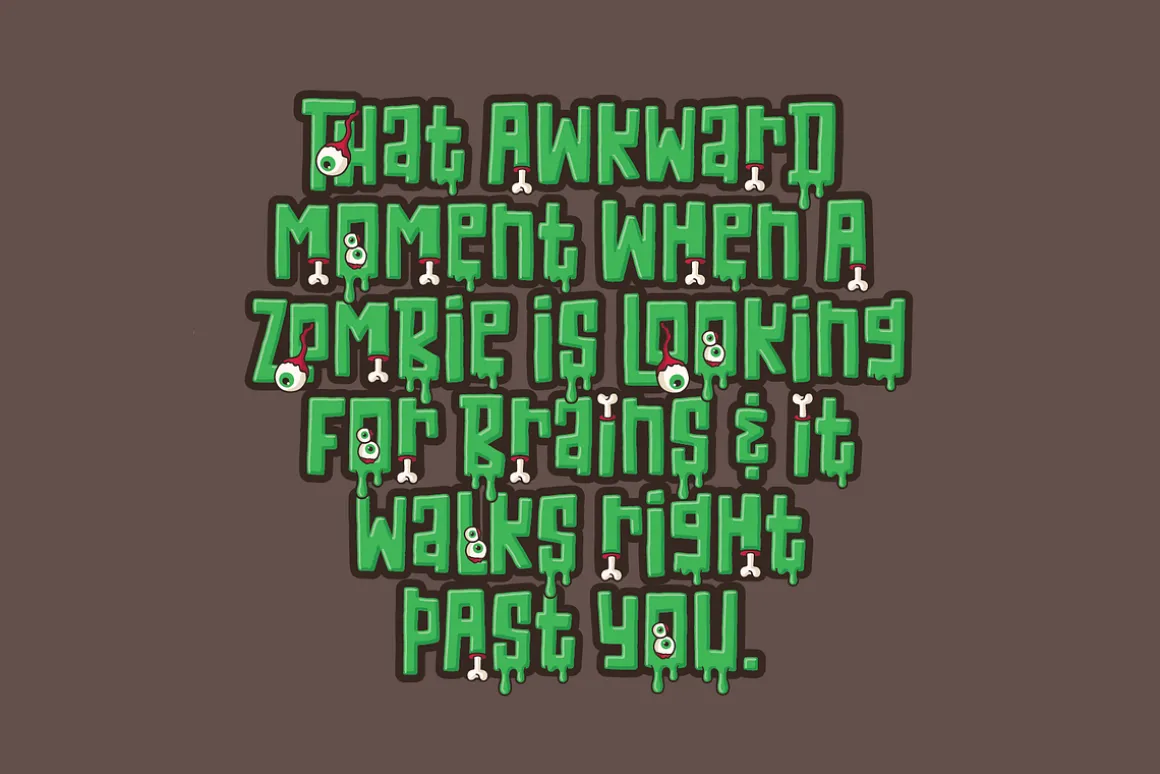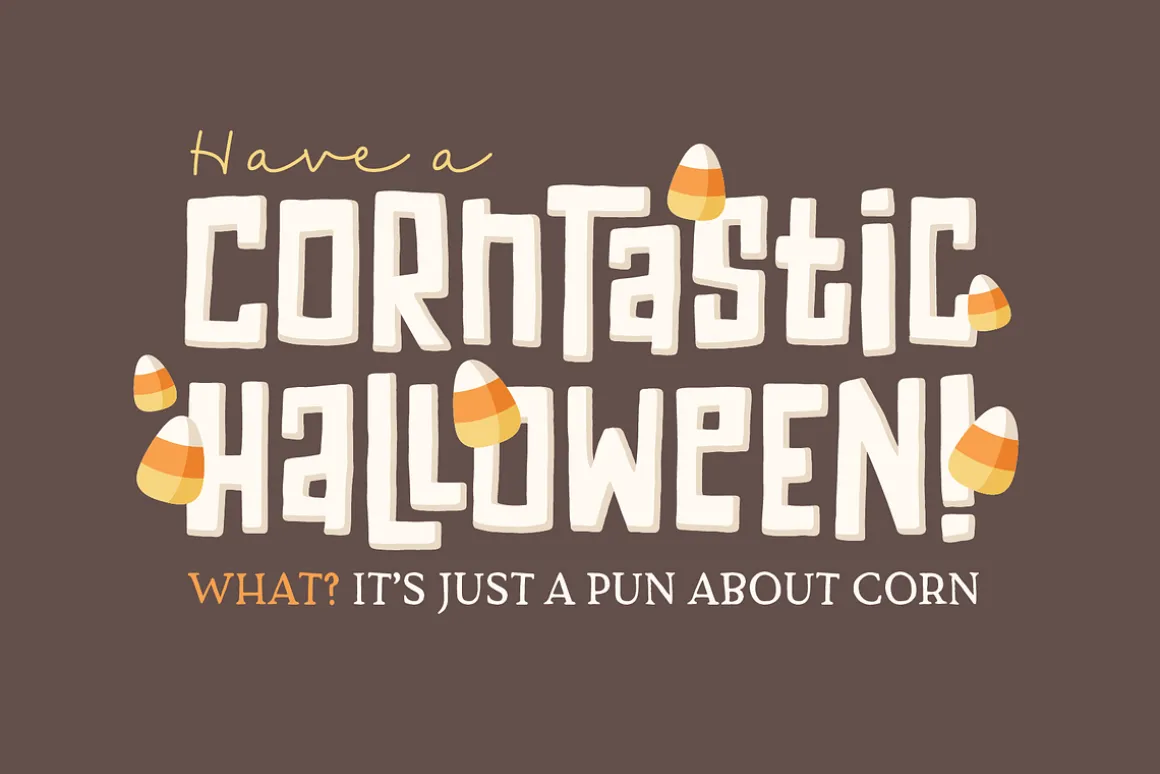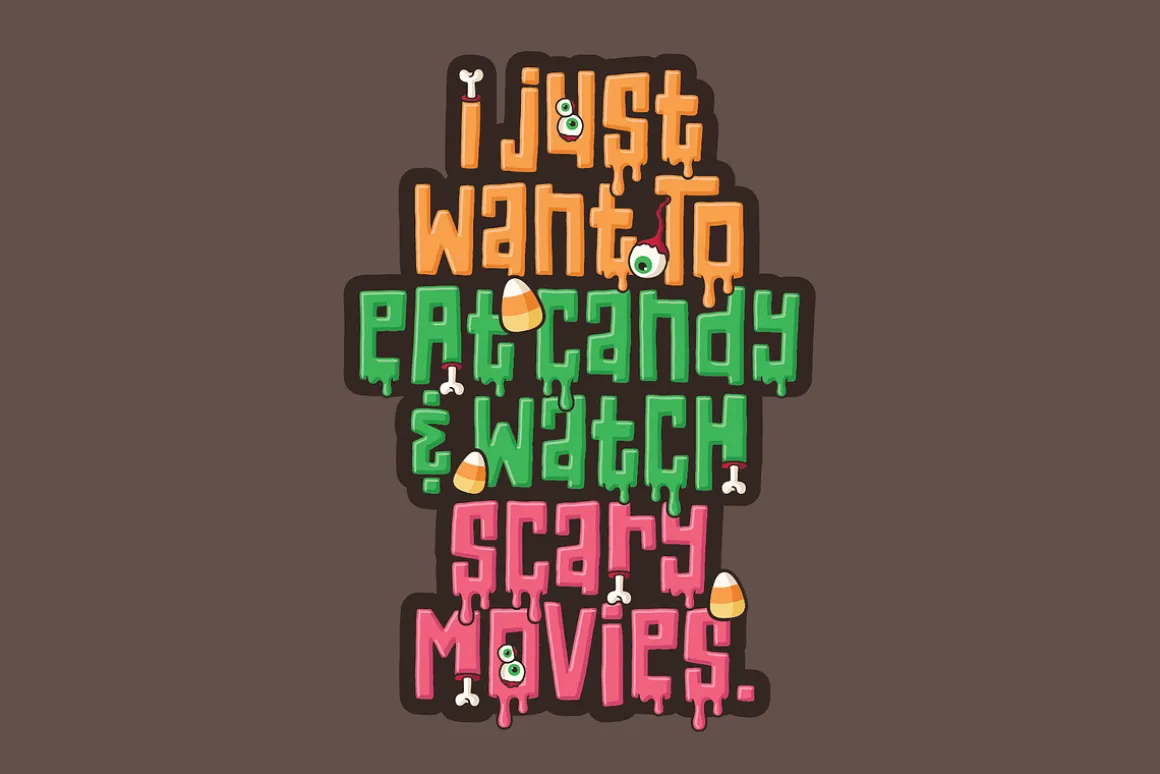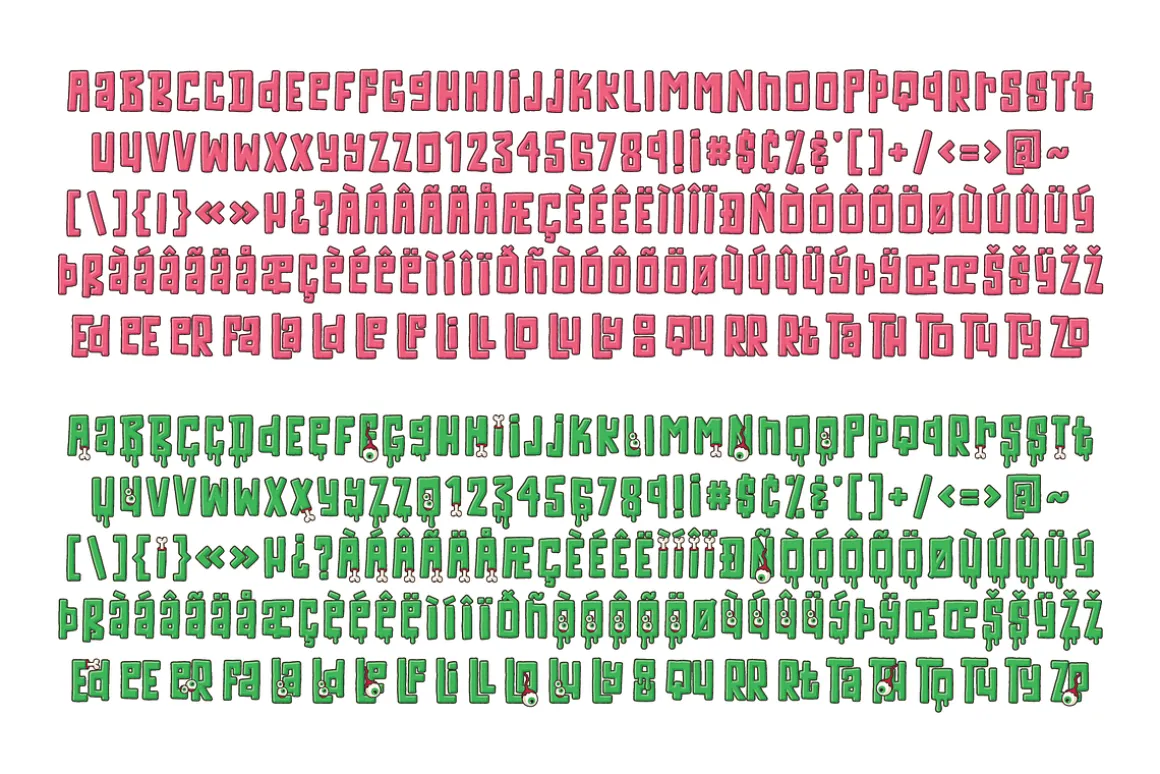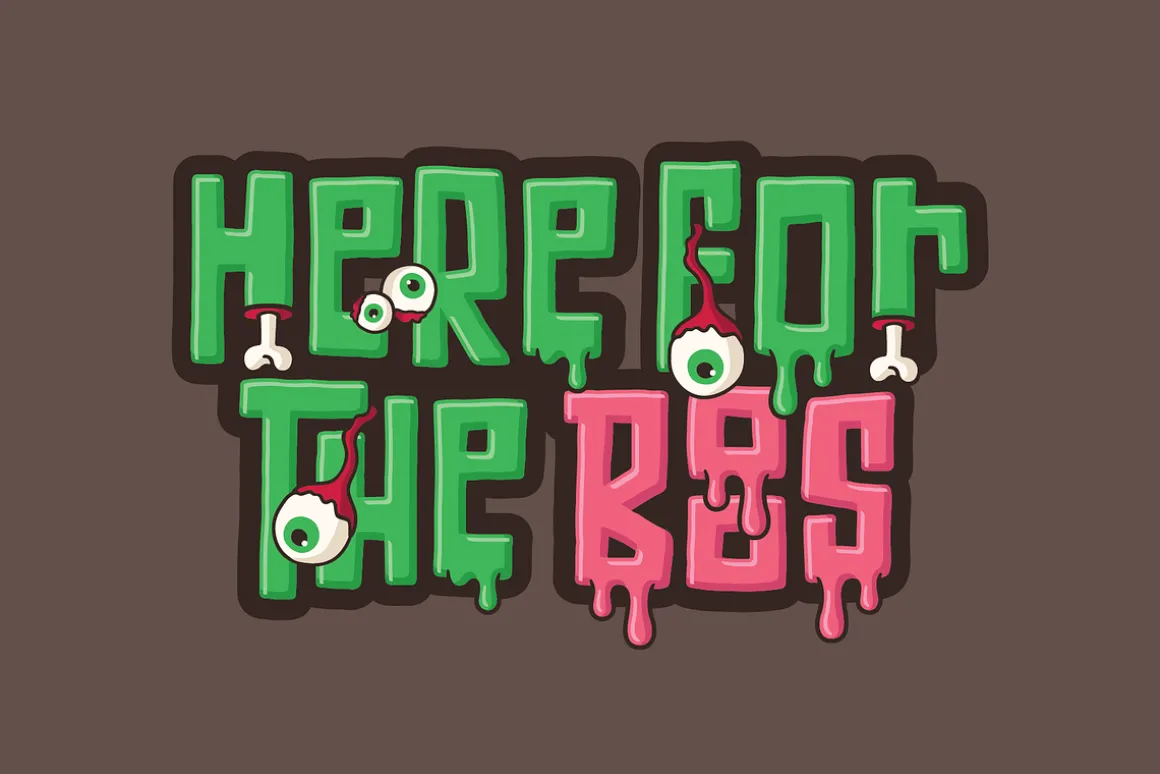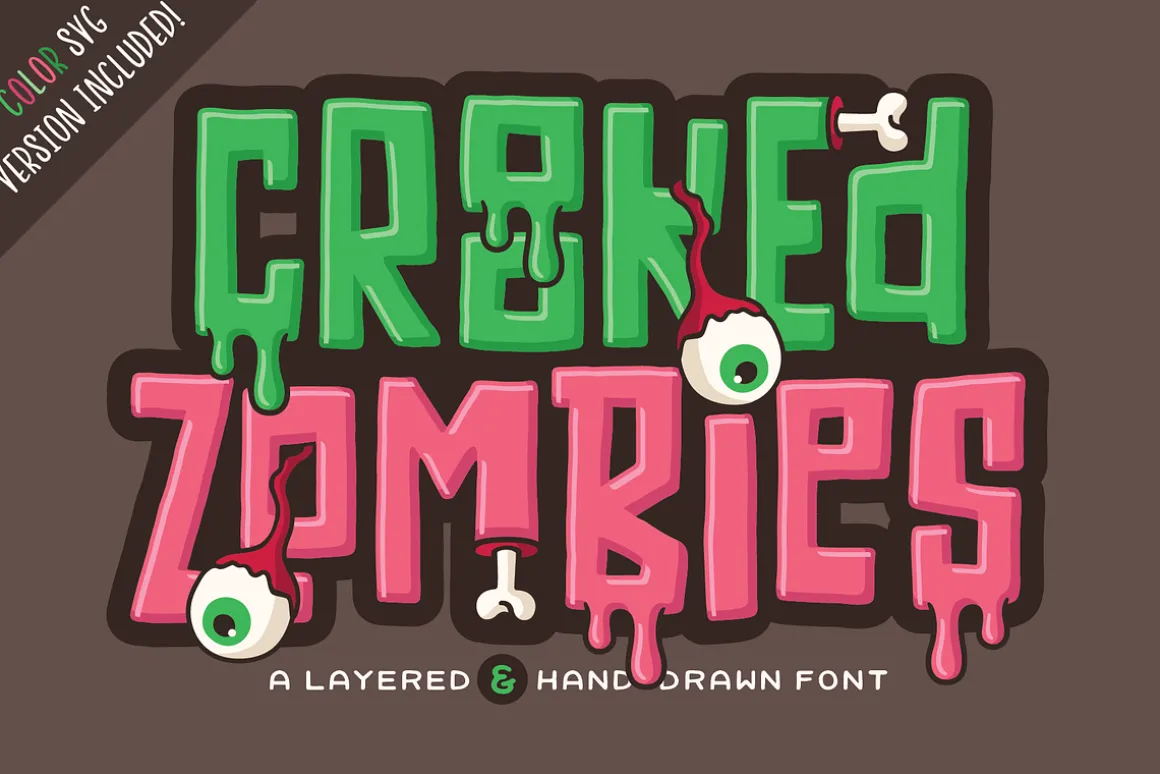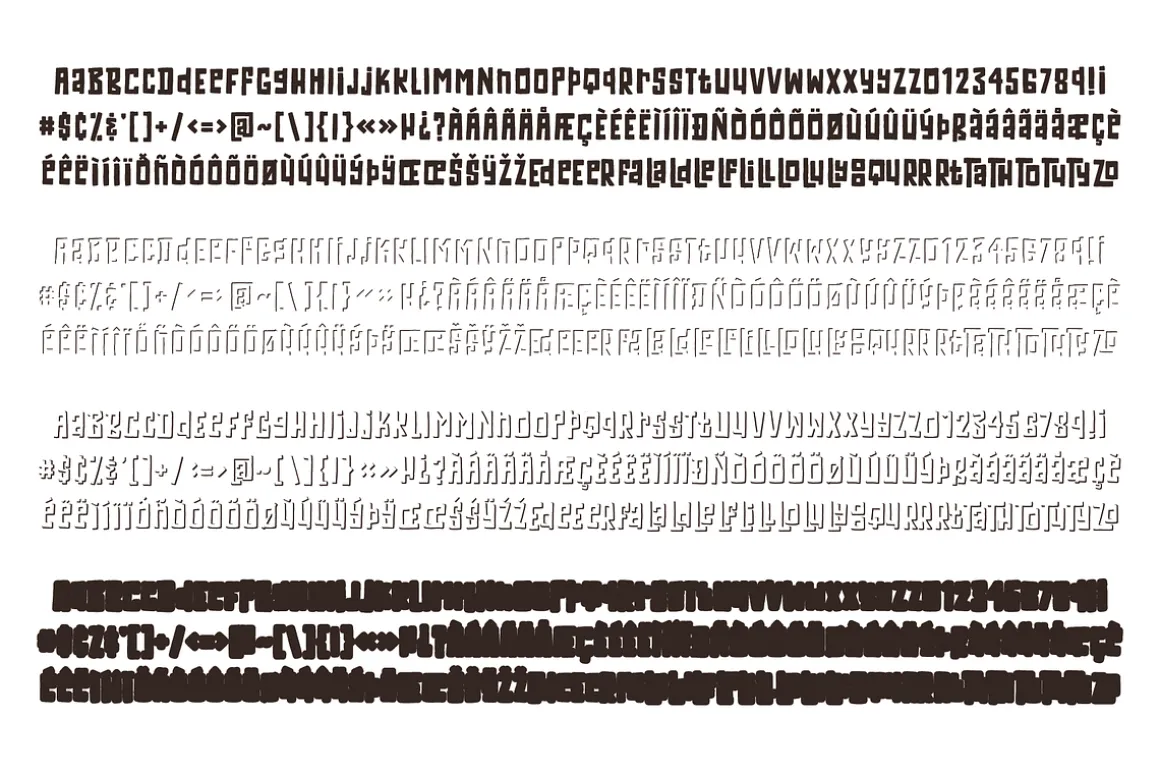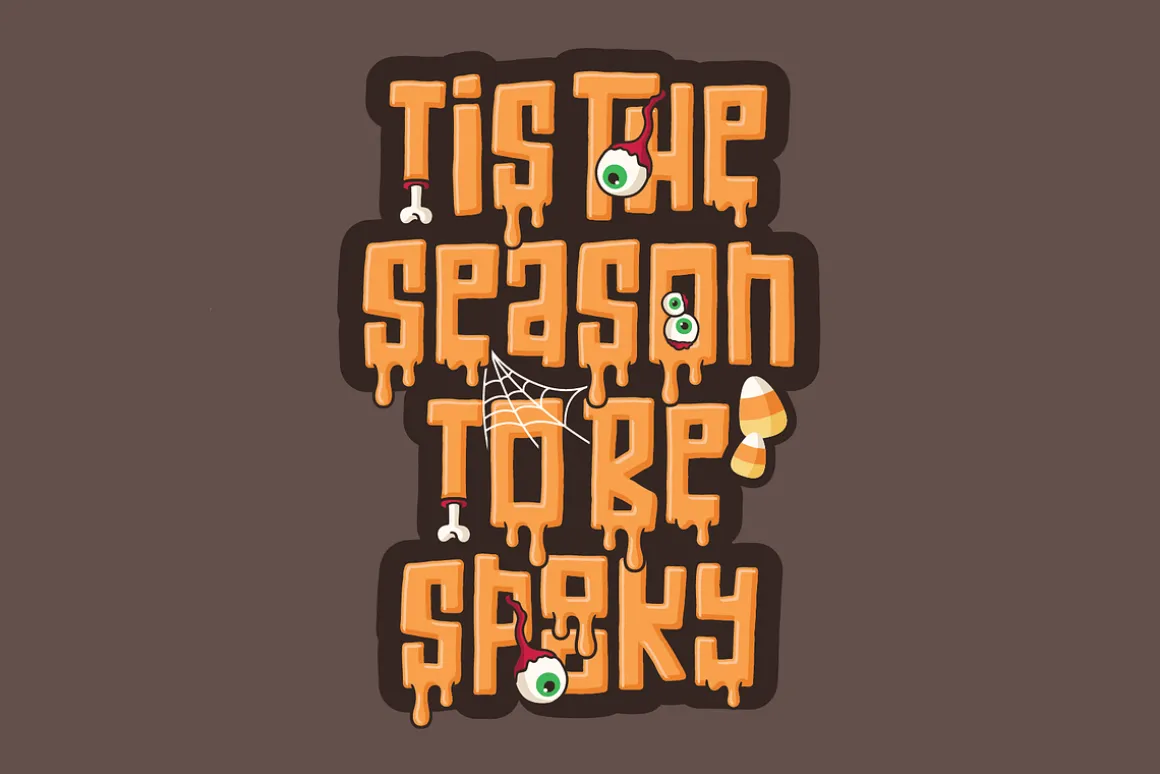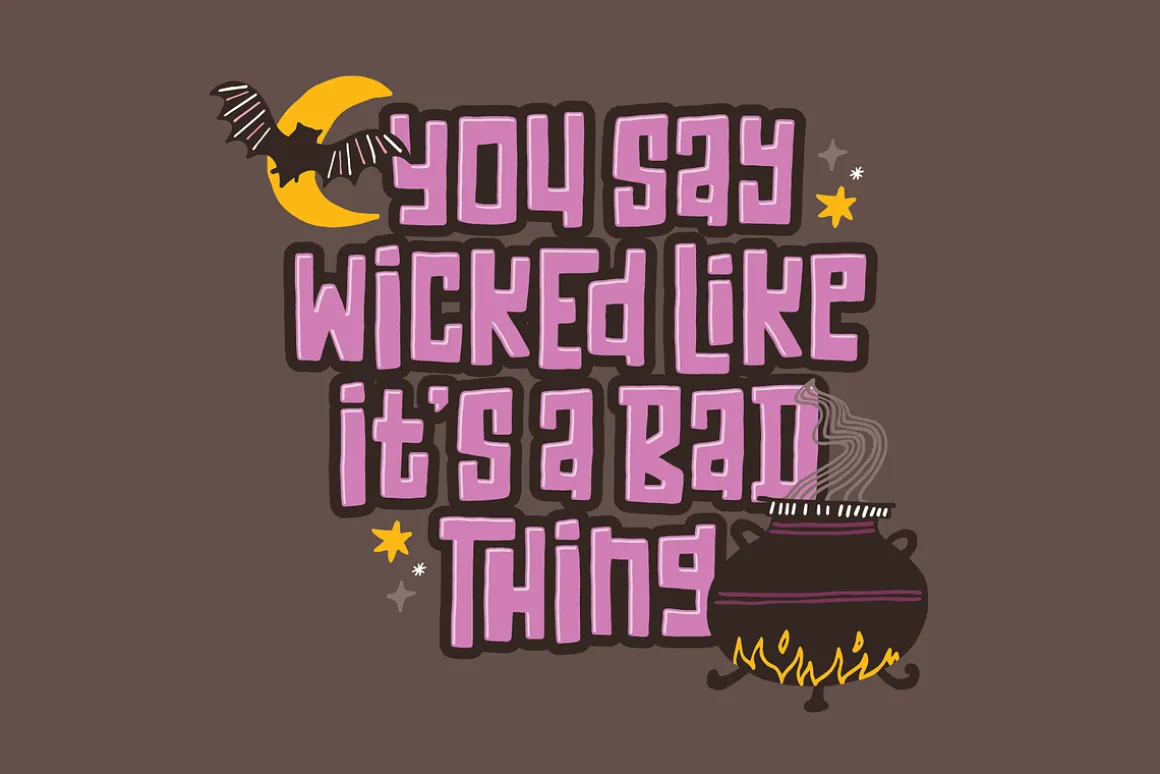
Crooked Zombies is an incredibly fun and unique, hand-drawn font. With 4 layers to mix and match plus 2 color font variations (one with zombie doodles and one without), the options are endless! It’s perfect for Halloween designs, but can also be used in a variety of other ways.